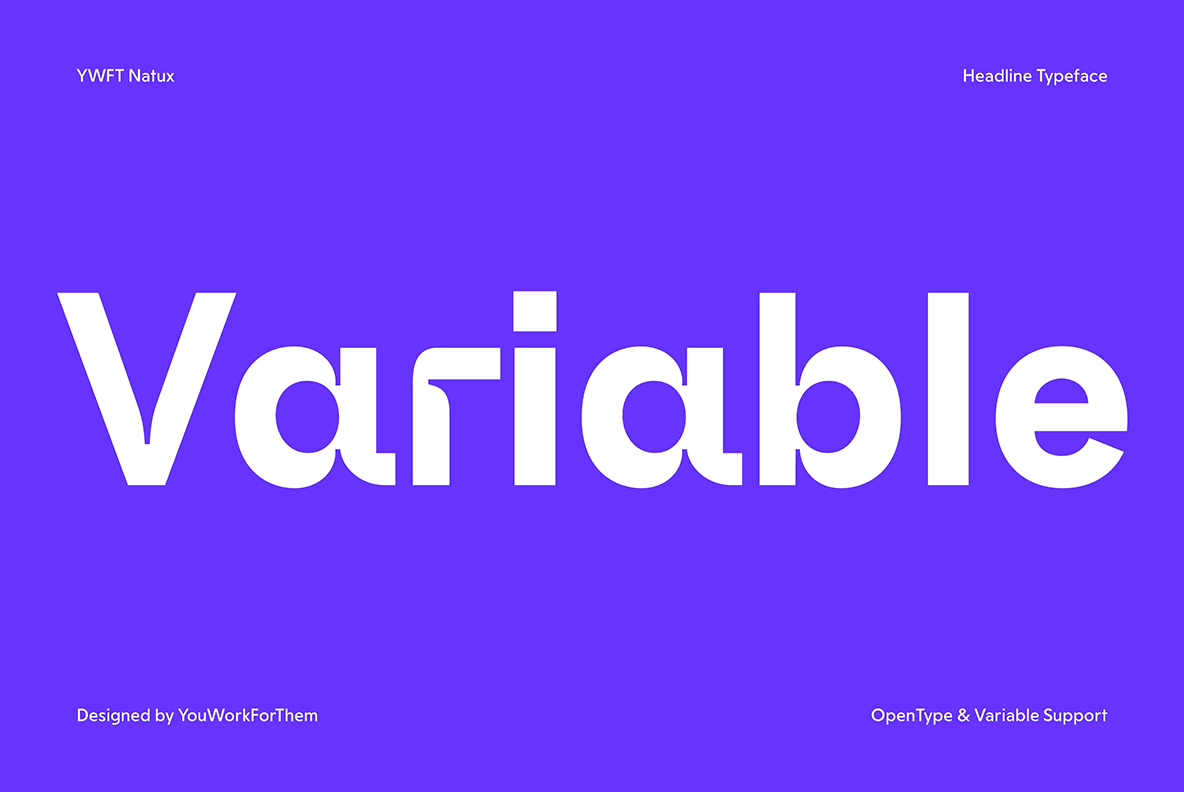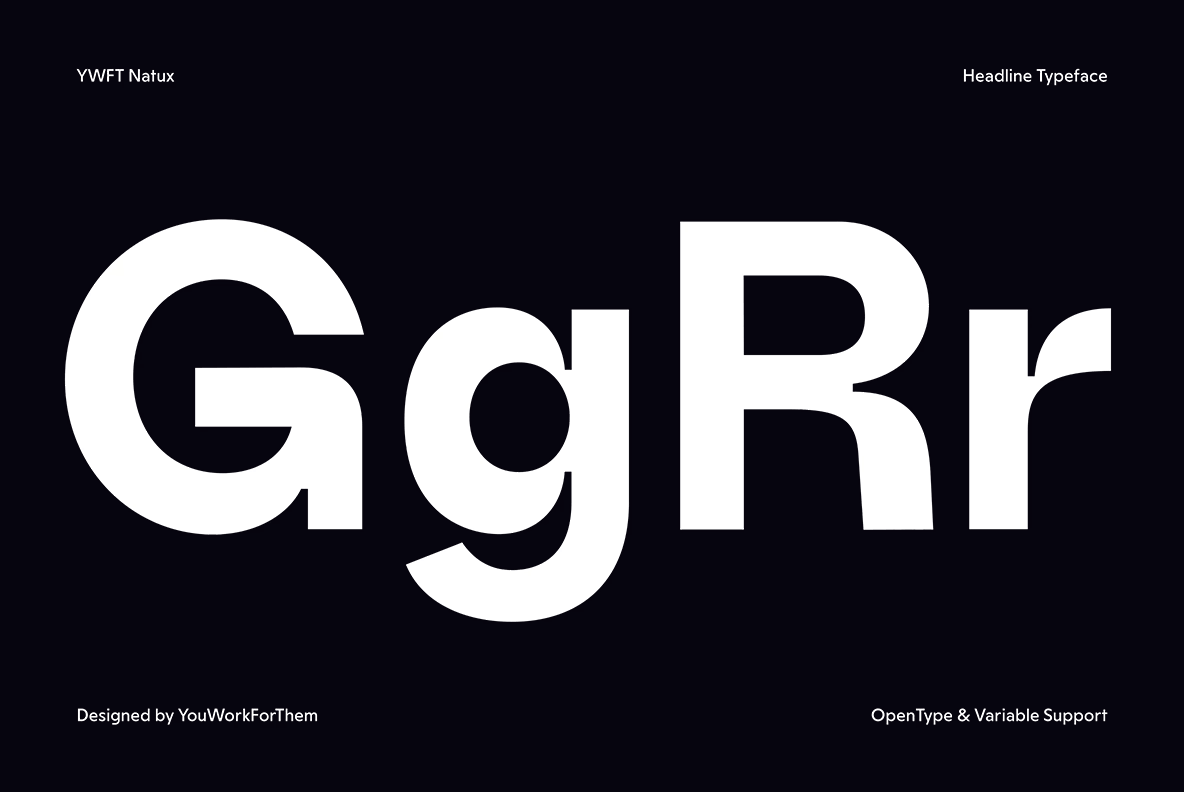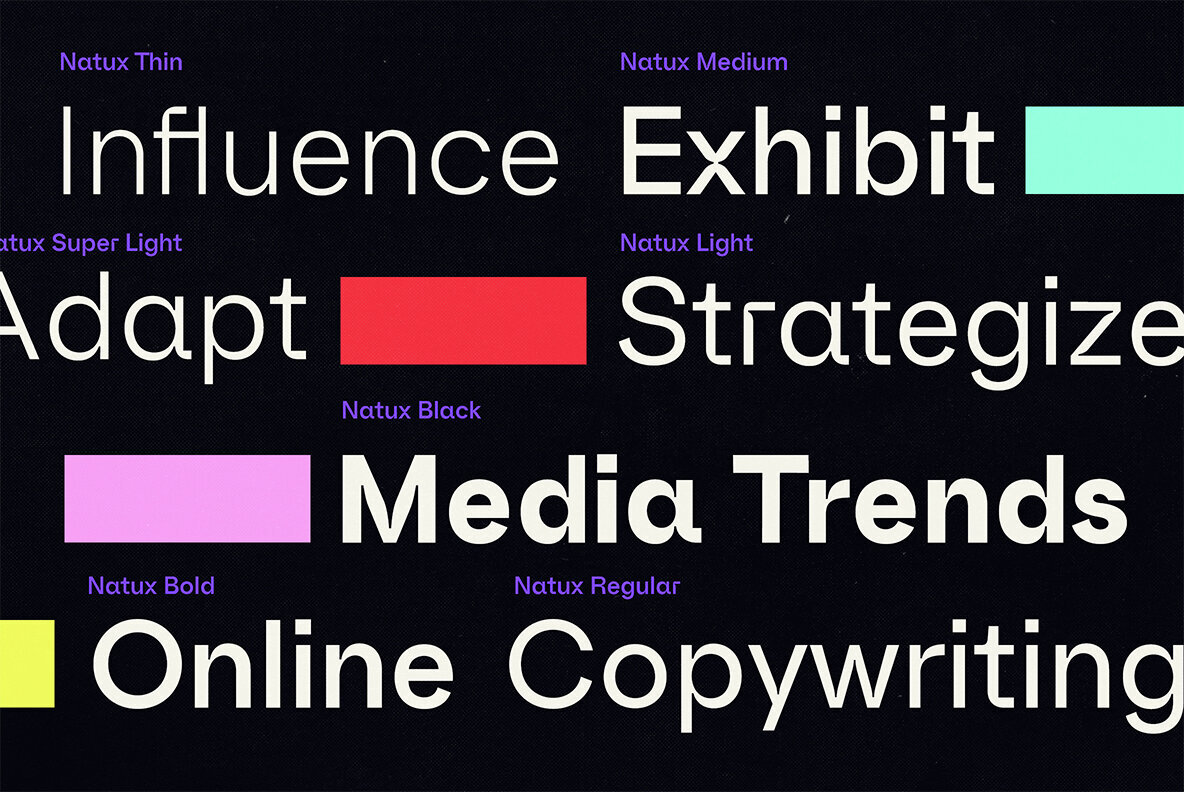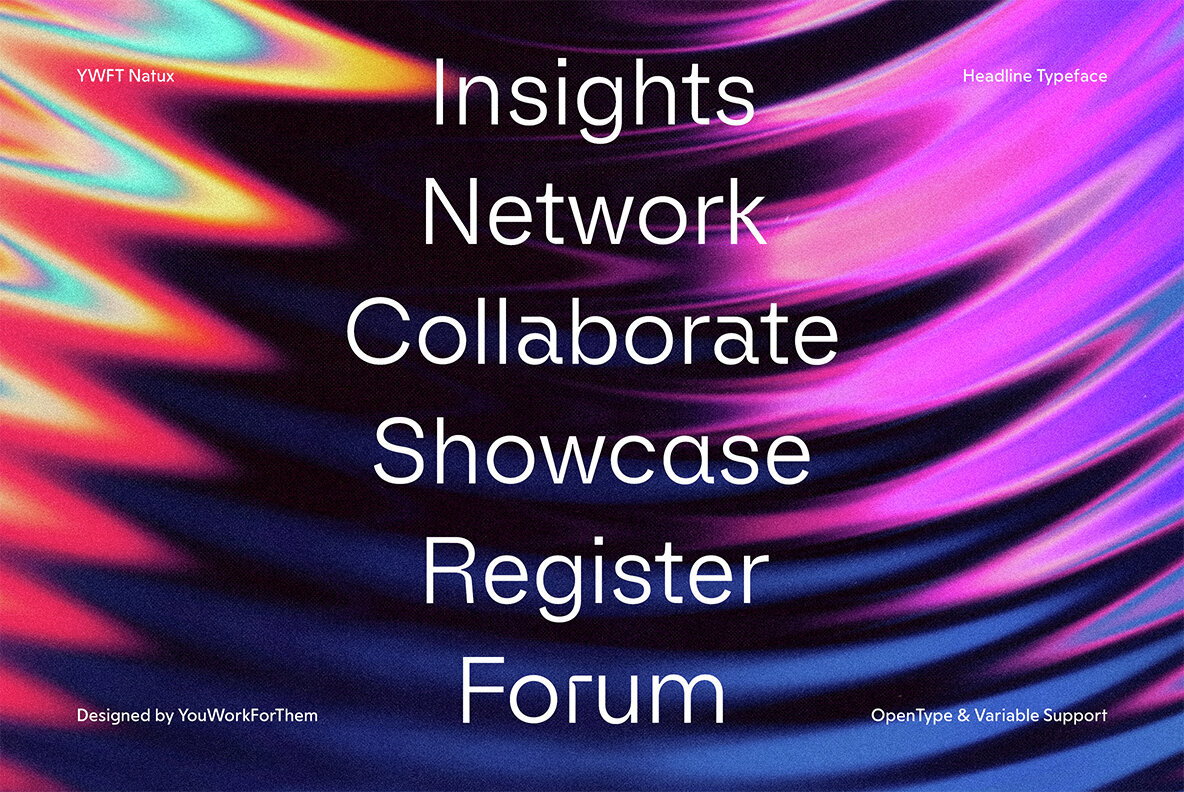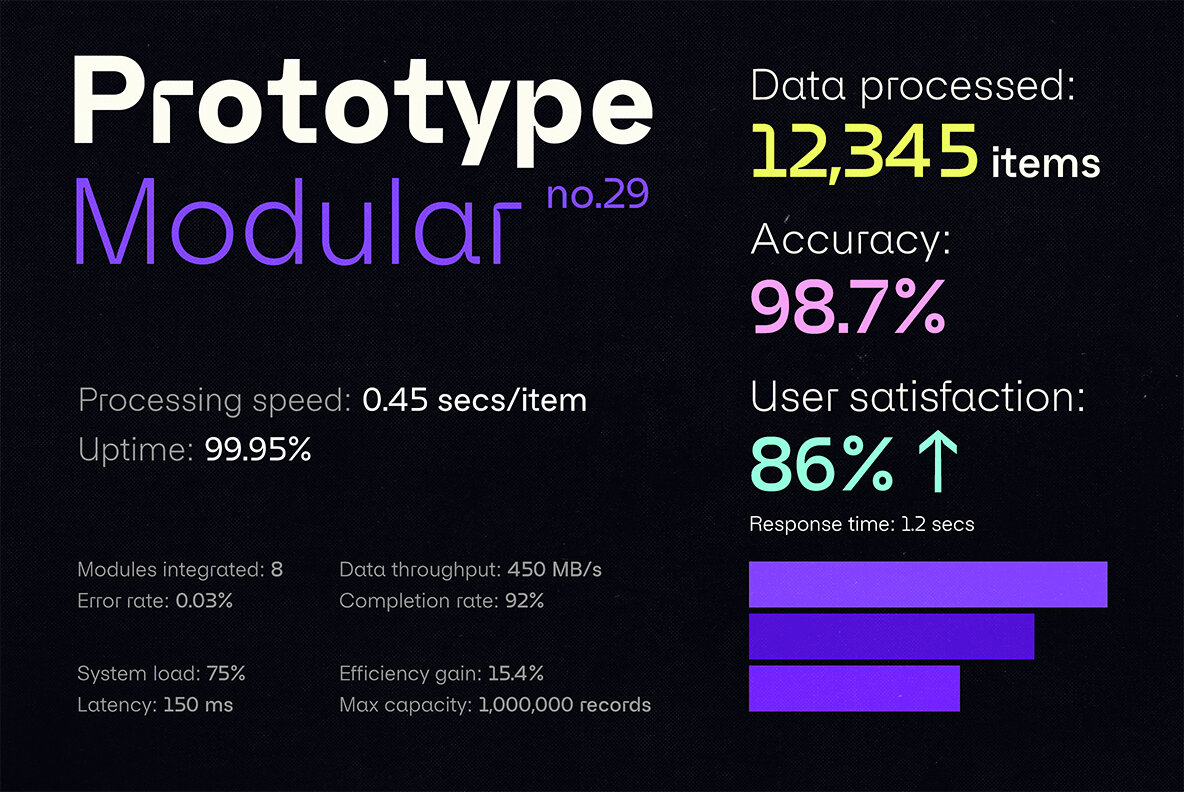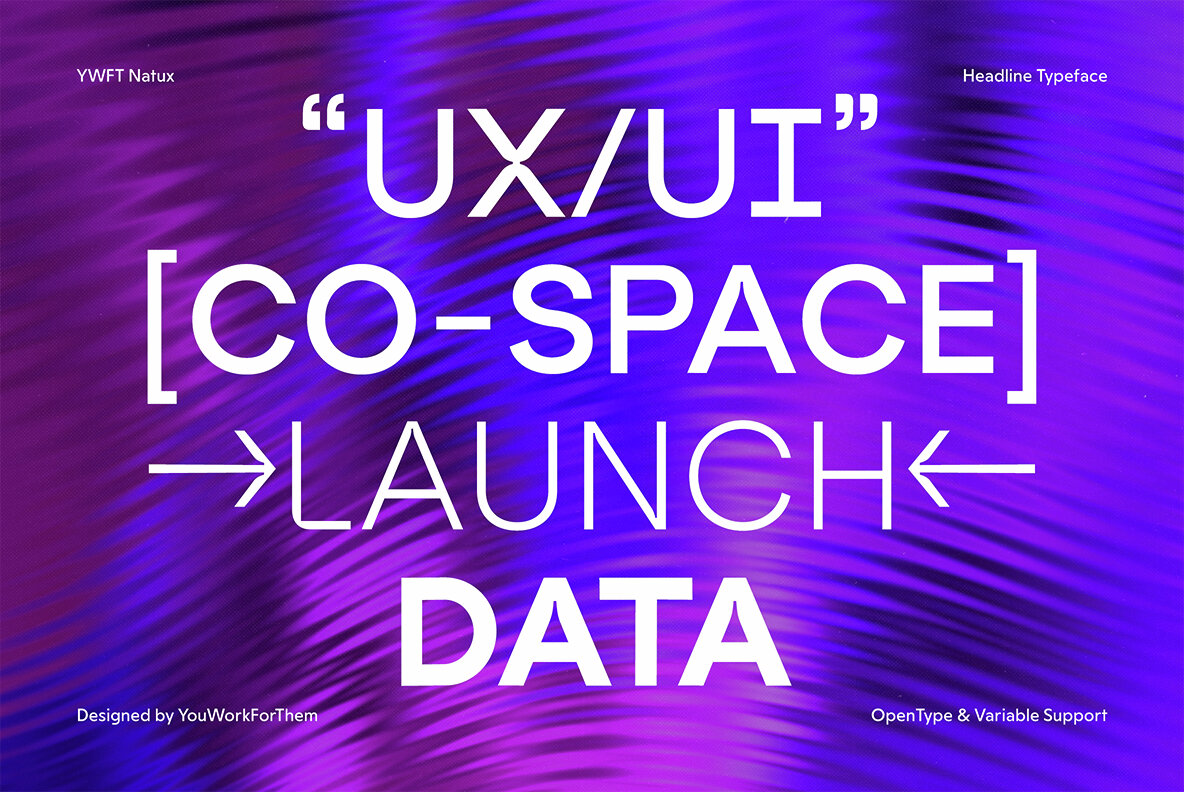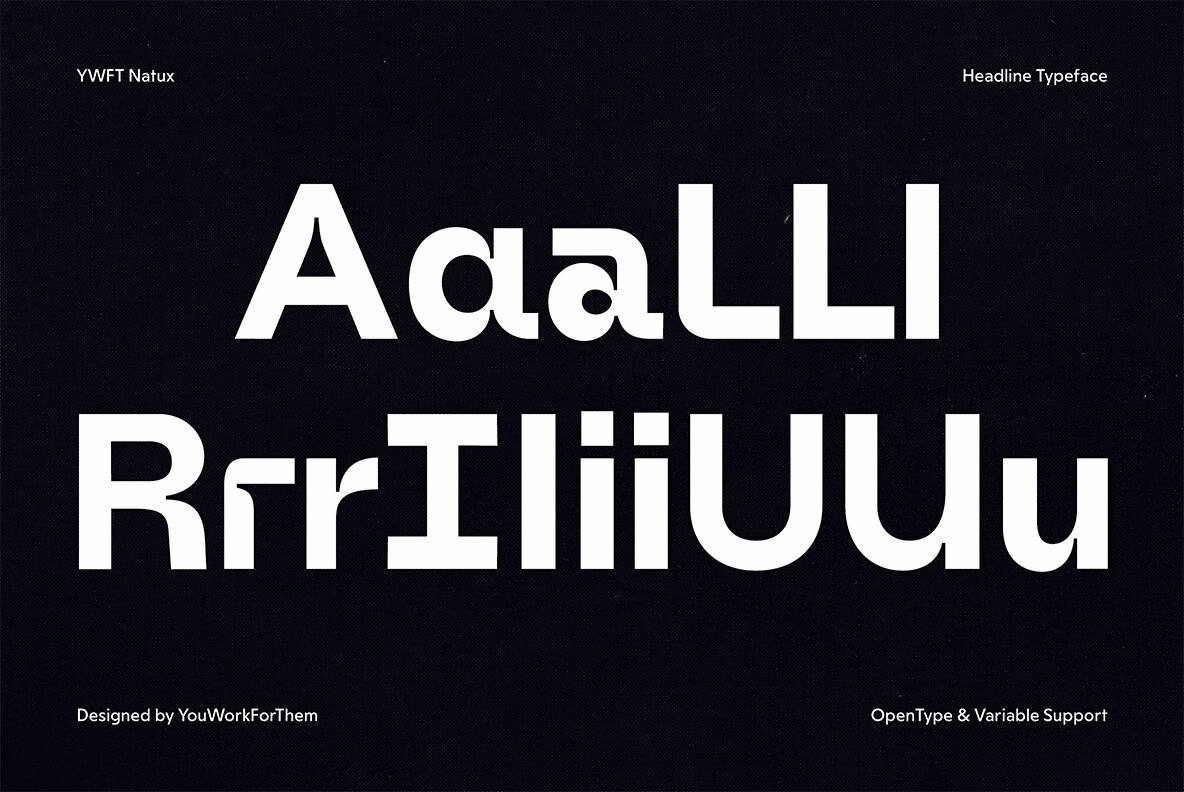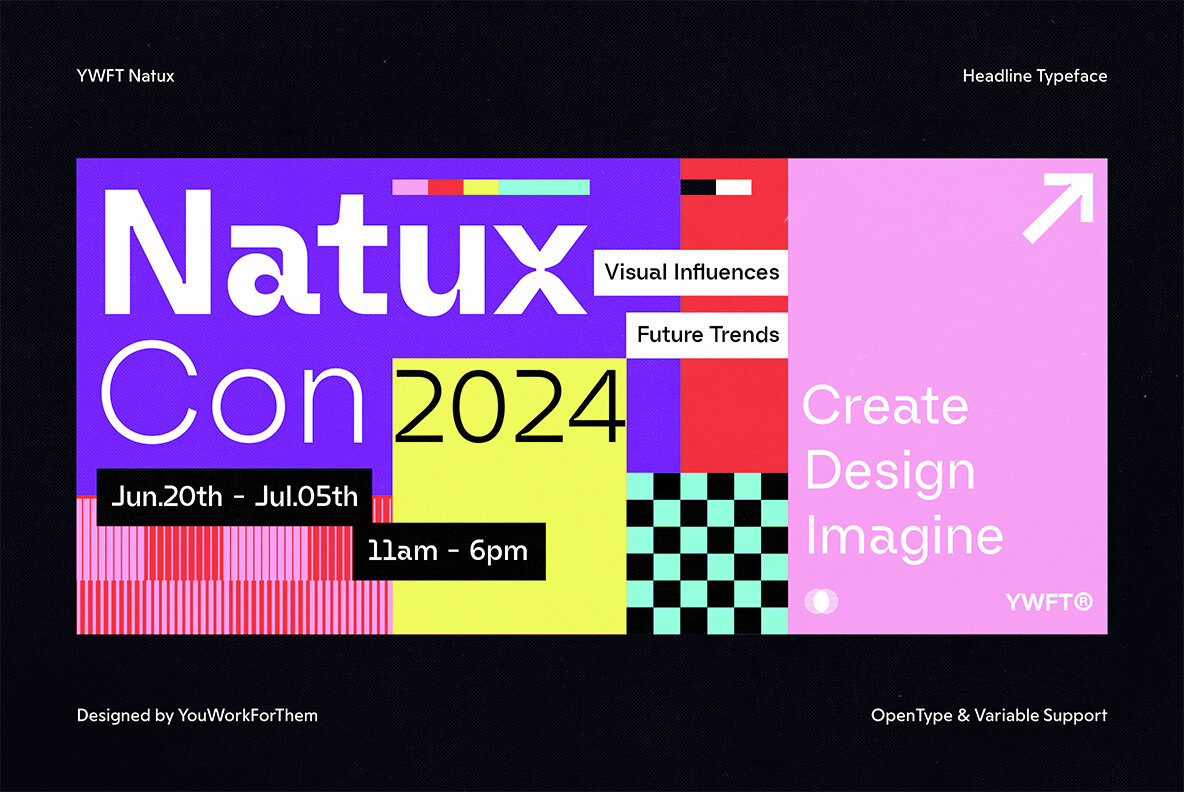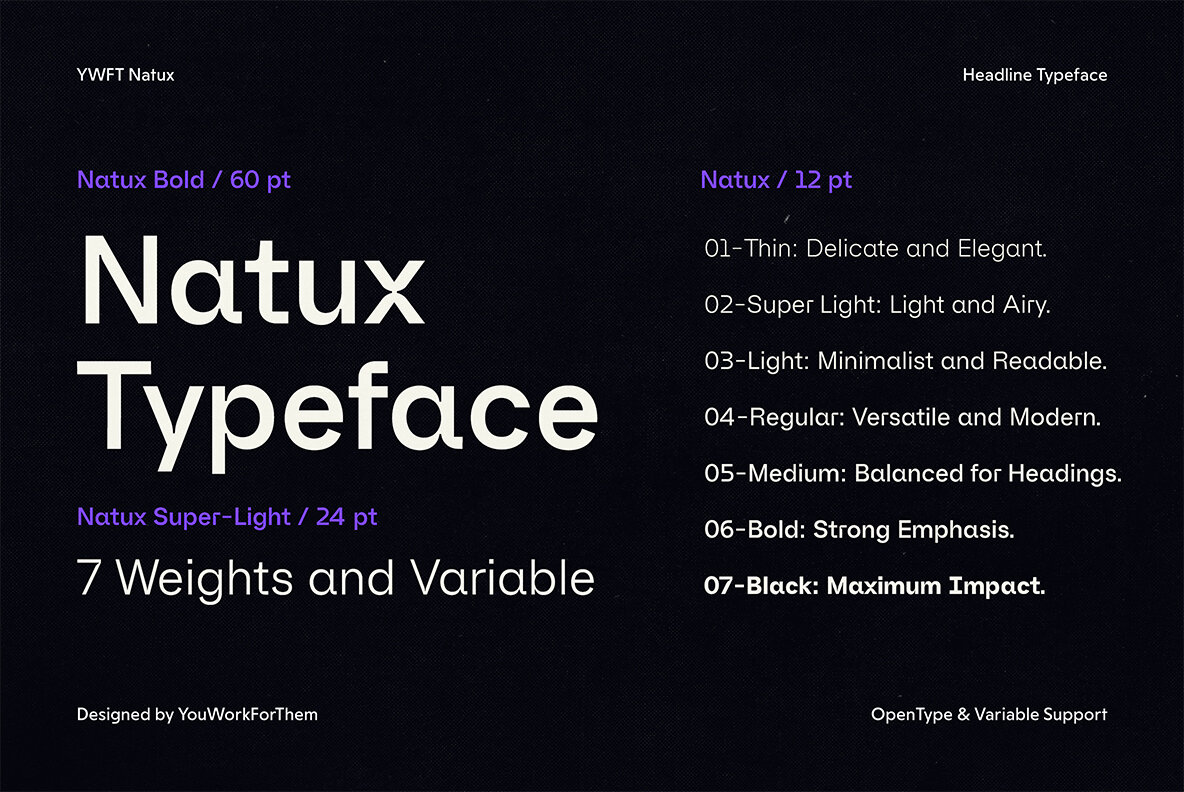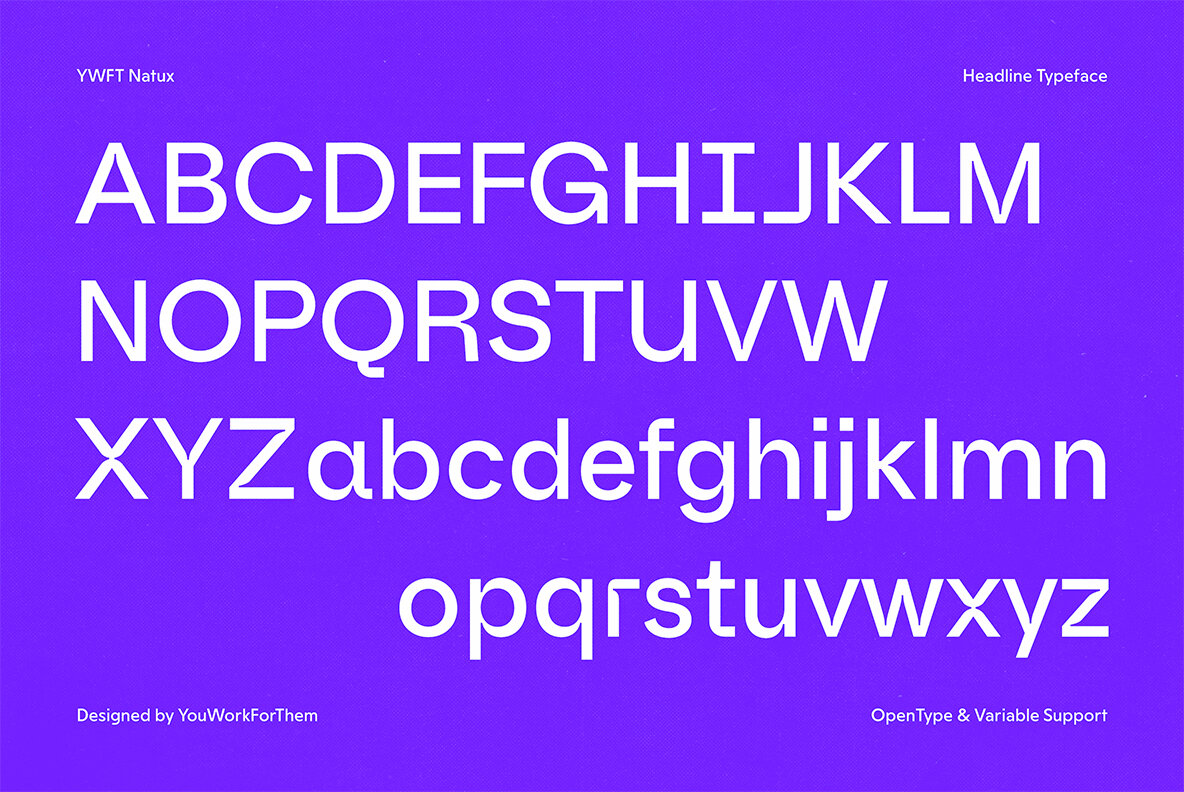
YWFT Natux Font
Introducing YWFT Natux, a new geometric and modern sans-serif font exclusive to YouWorkForThem. Designed as a continuation of the design themes from our YWFT Valid and YWFT Avant Modern fonts, YWFT Natux captures the essence of today's tech styles while being versatile across various branding and marketing genres. This font excels in both tech and finance as well as fashion and cosmetics, offering a strong and angled typesetting that adapts to different contexts. YWFT Natux features modern touches like slight hints of ink traps, inspired by older print designs but executed in a geometric style, making it ideal for both print and on-screen use. This blend of classic and contemporary elements ensures the font is not only visually appealing but also highly functional. YWFT Natux is affordably priced with no subscription required. Purchase once and enjoy lifetime use with easy personal and commercial font licensing options. Unlike other platforms that require yearly payments for web fonts and mobile font licensing, YouWorkForThem offers a cost-effective solution with this pay-once design. Explore other geometric and modern fonts like YWFT Natux at YouWorkForThem. Visit our Sans-Serif Fonts and Geometric Fonts collections to find the perfect typeface for your projects. Make your designs unique with YWFT Natux, a modern sans-serif font that combines geometric precision with versatile application. Available exclusively at YouWorkForThem. Additional products used for slideshow images:YWFT Natux: A Modern Geometric Sans-Serif Font
Key Features of YWFT Natux
Unique Design Elements
Ideal Typesetting Uses